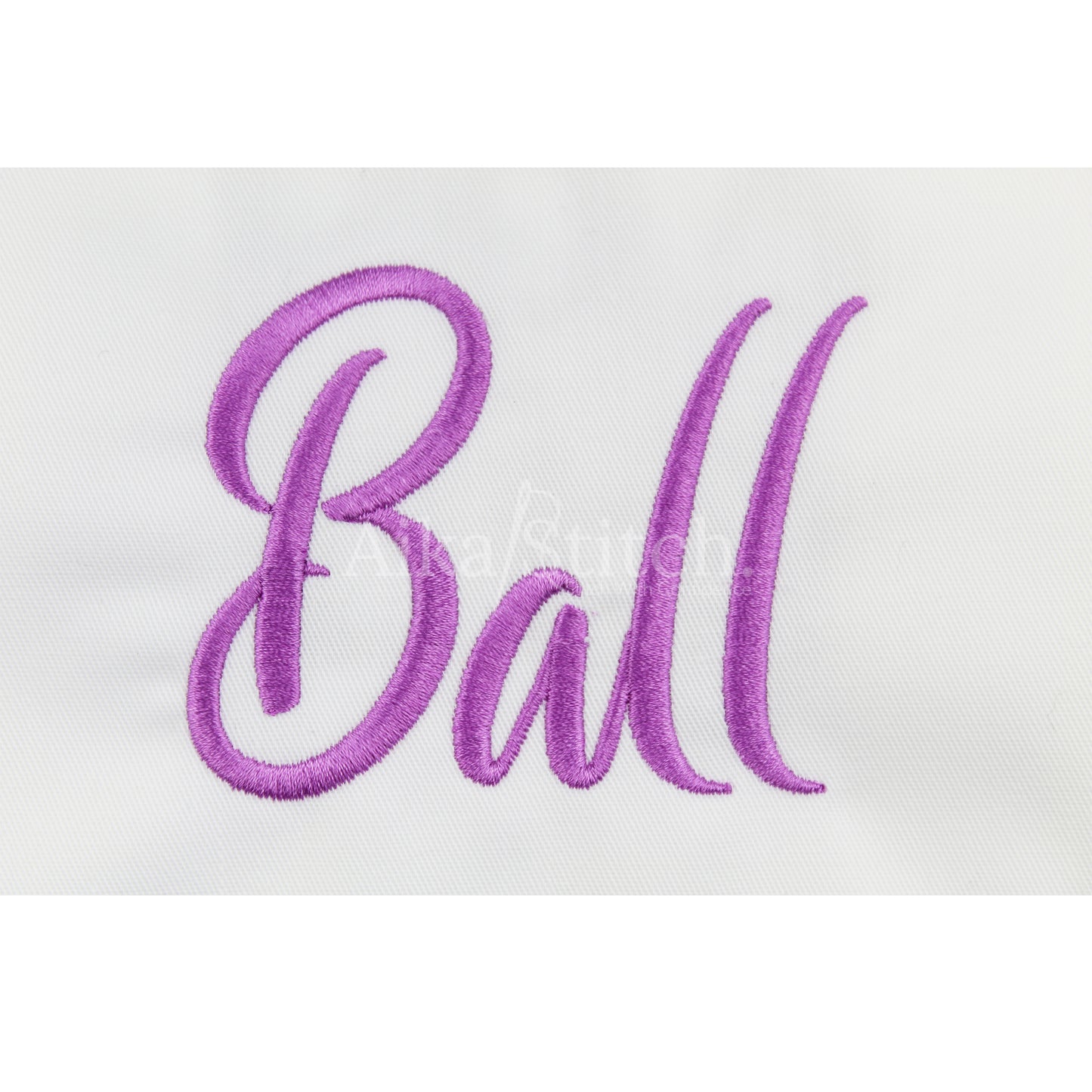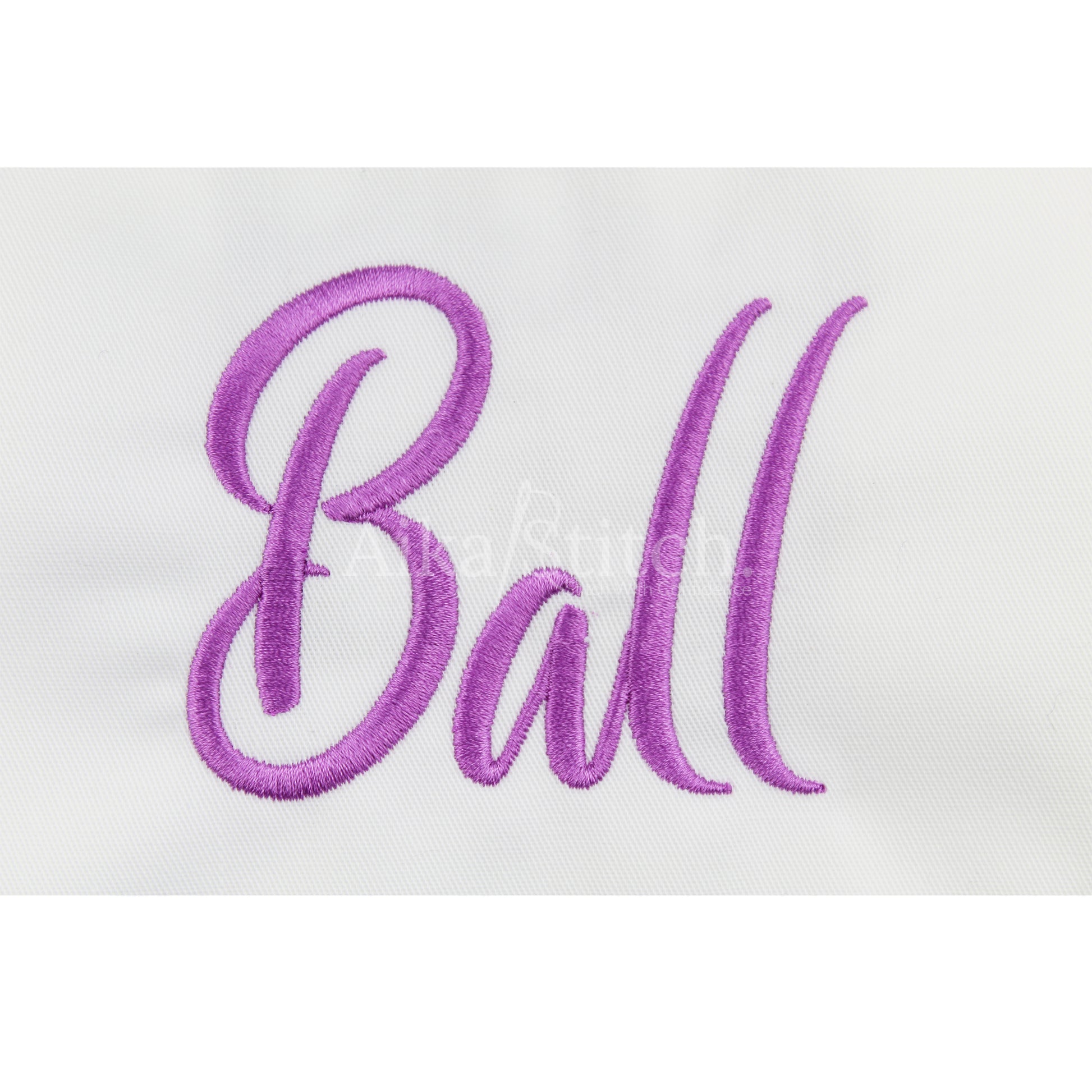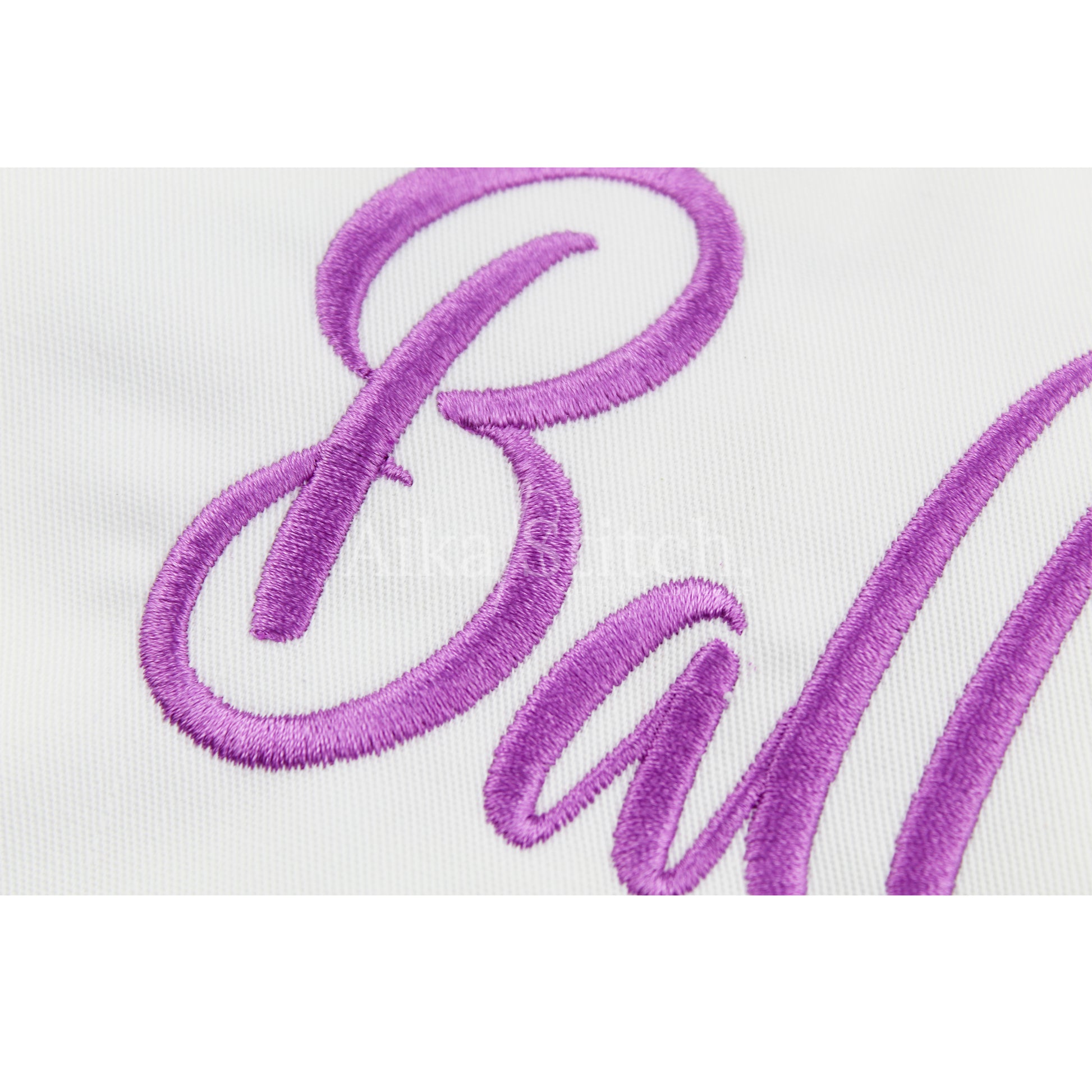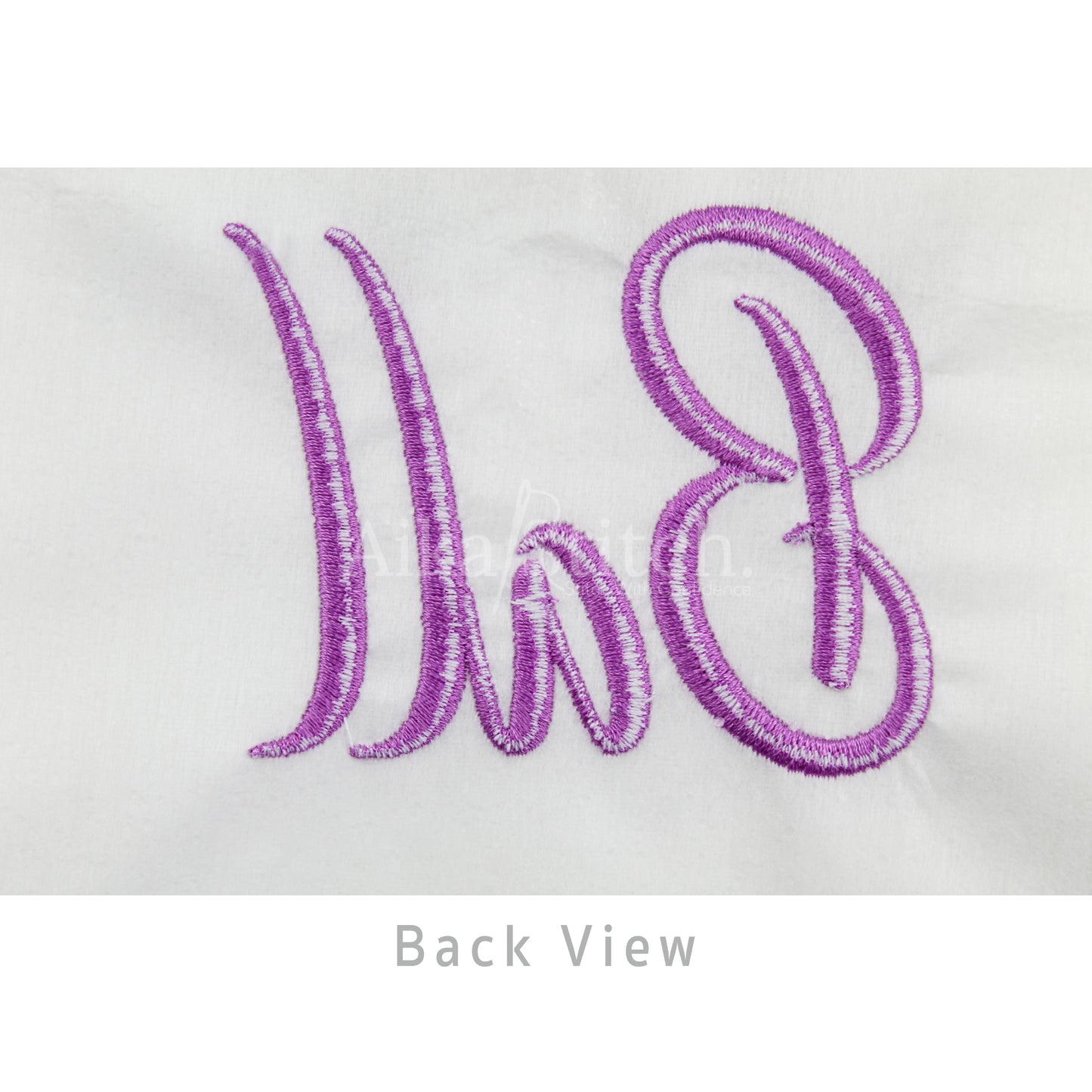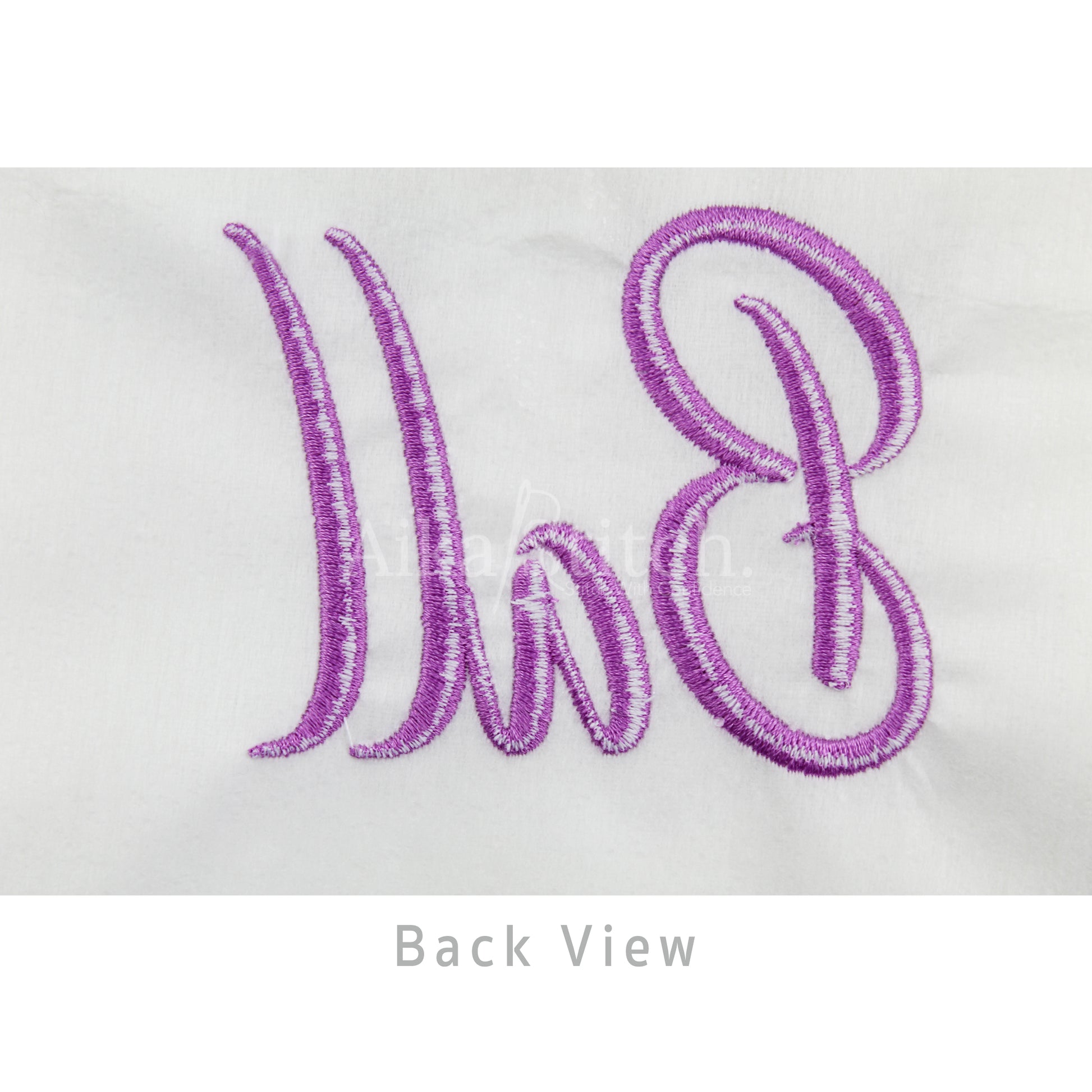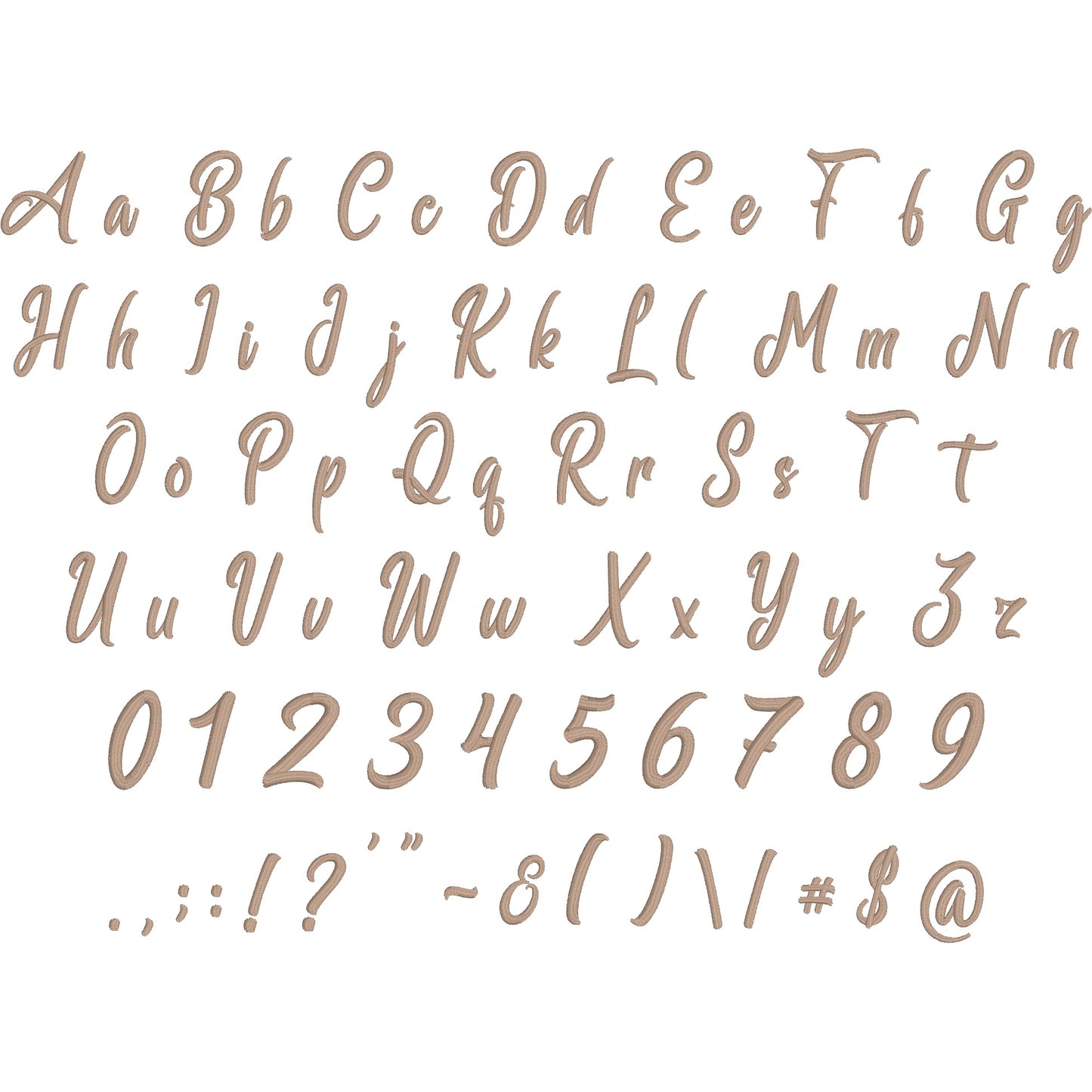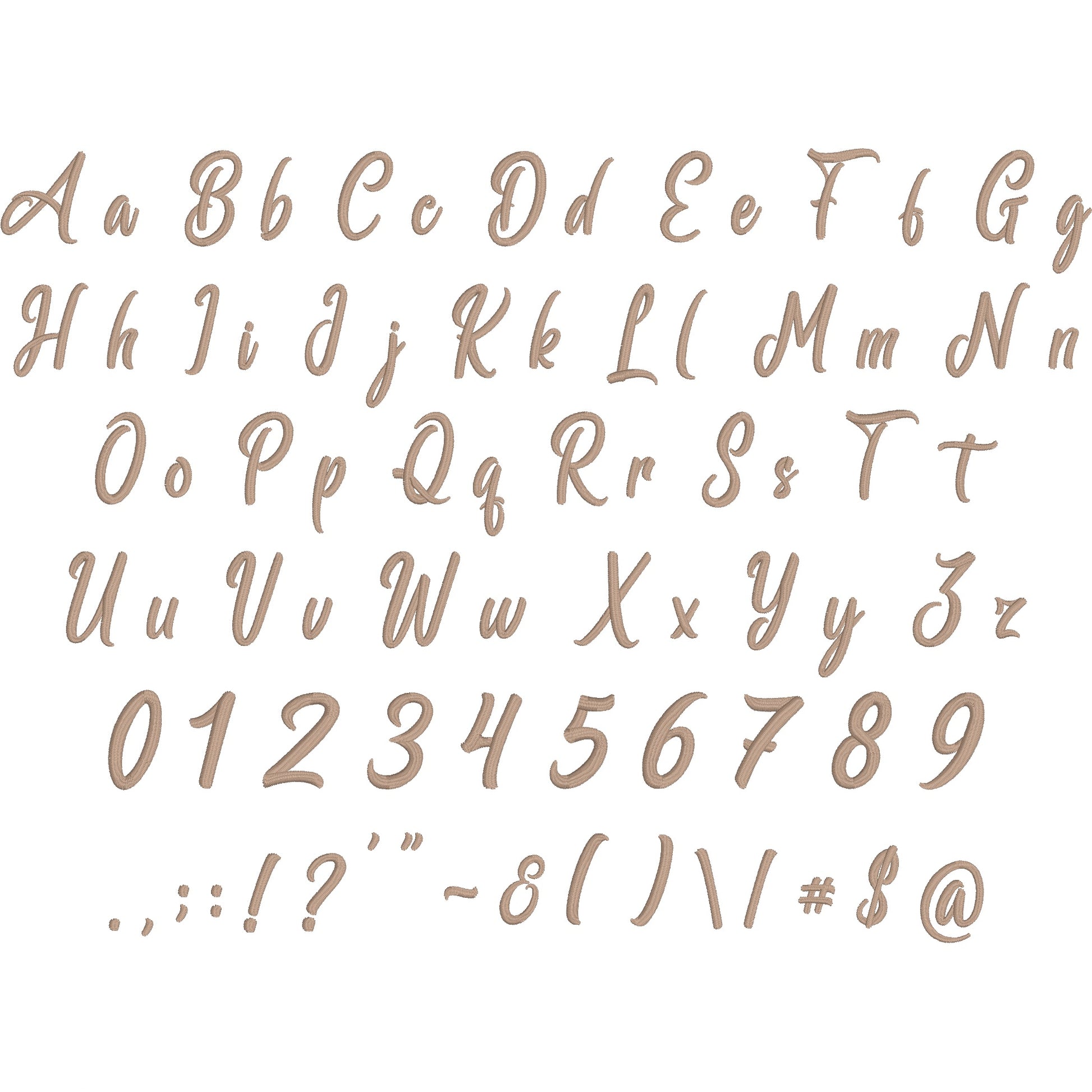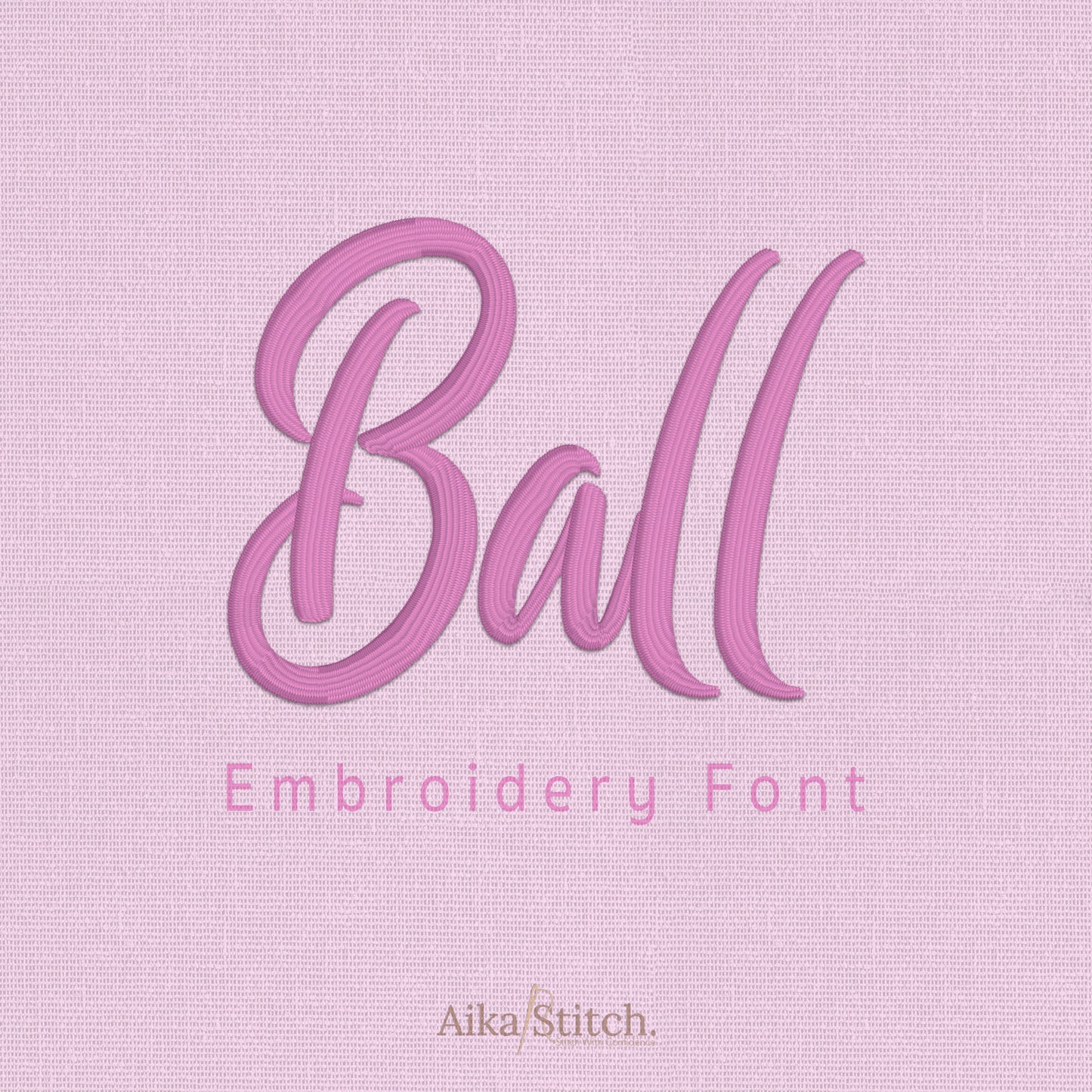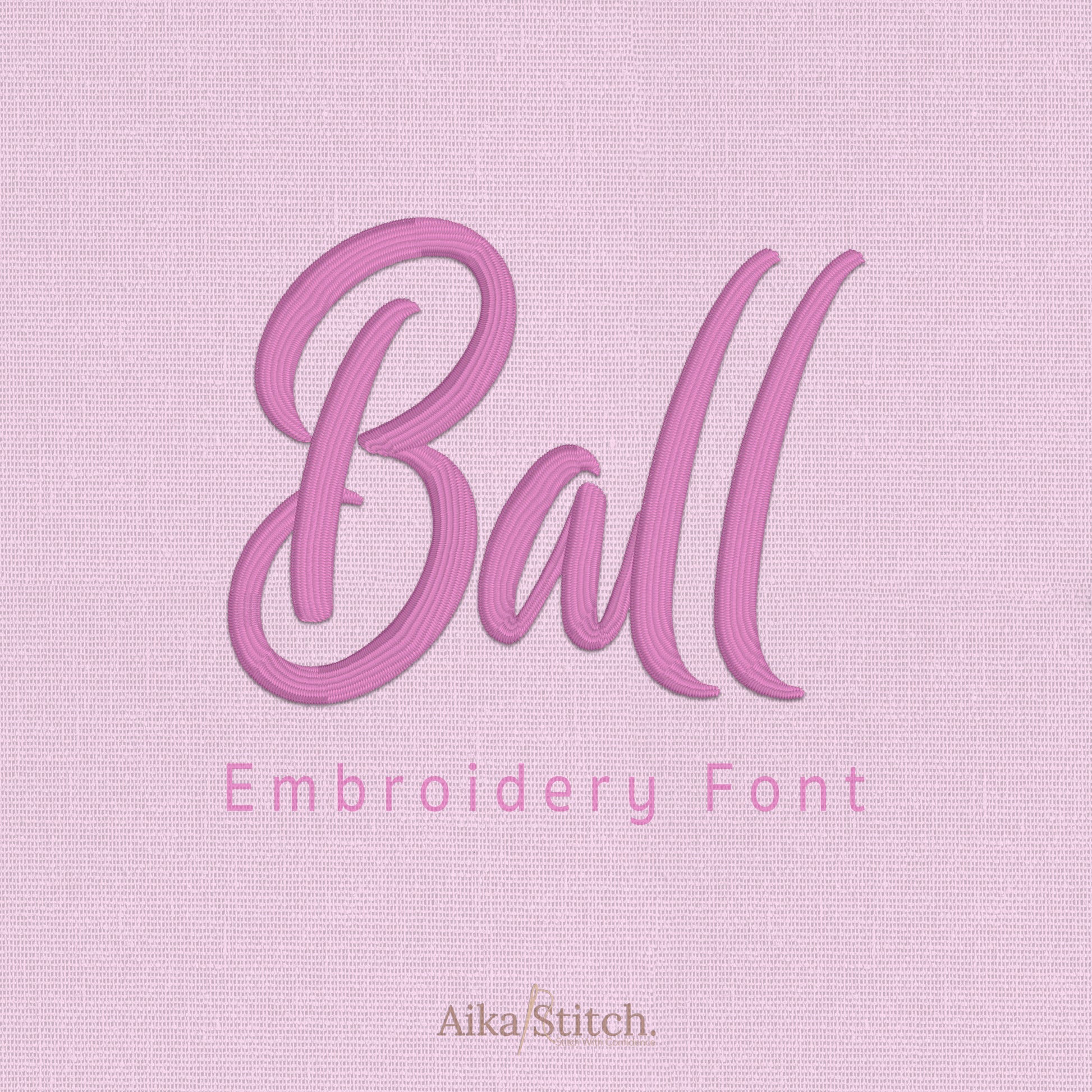
Ballmain Script Handwritten Embroidery Font
Ballmain is a Script Handwritten machine embroidery font featuring beautiful satin stitch lettering. Perfect for shirts, towels, hats, baby gifts, monograms, and small business embroidery projects.